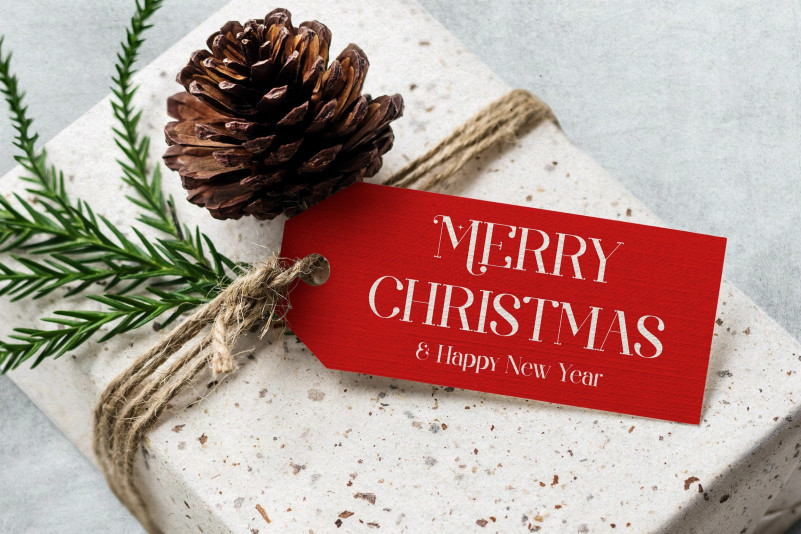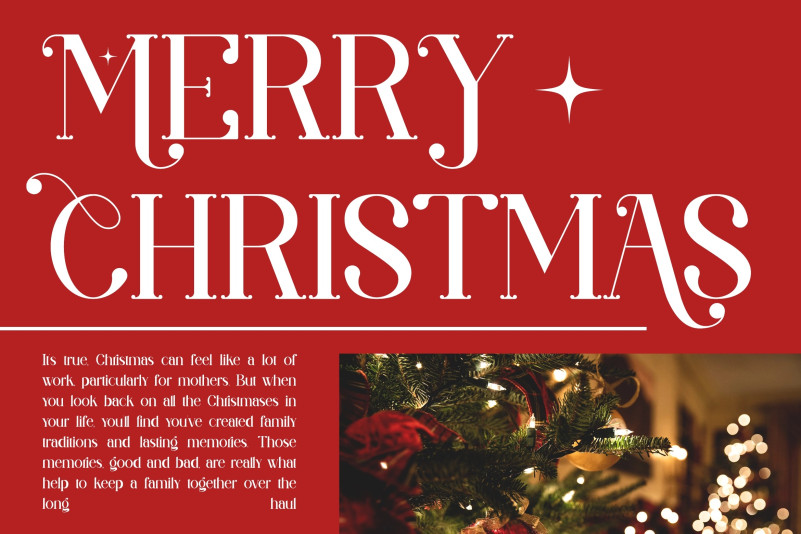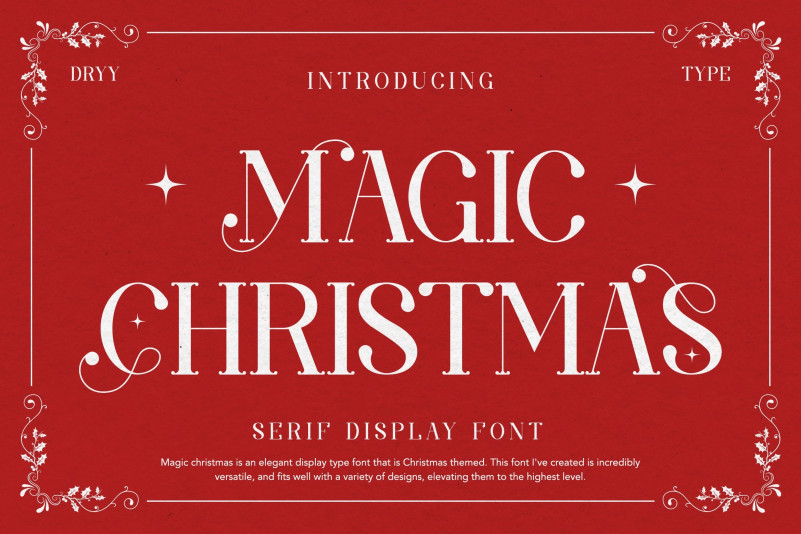
Magic Christmas Font
Magic Christmas Serif Font, a elegant serif display font that has a unique character and is elegant to use.
Magic christmas is an elegant display type font that is Christmas themed. This font I’ve created is incredibly versatile, and fits well with a variety of designs, elevating them to the highest level. Add this font to your favorite creative ideas and see how it turns out!